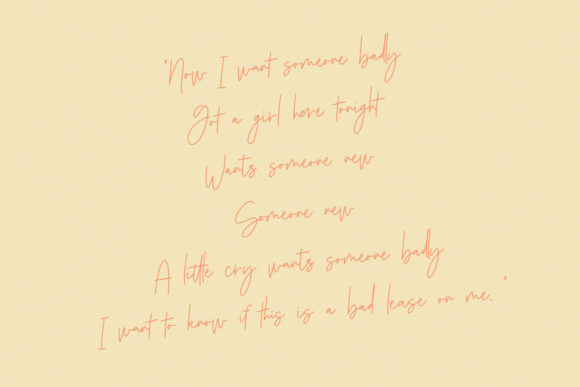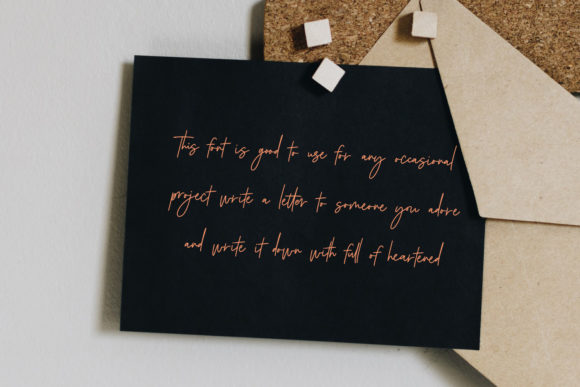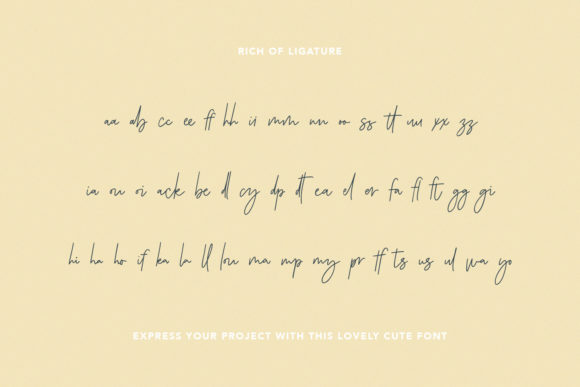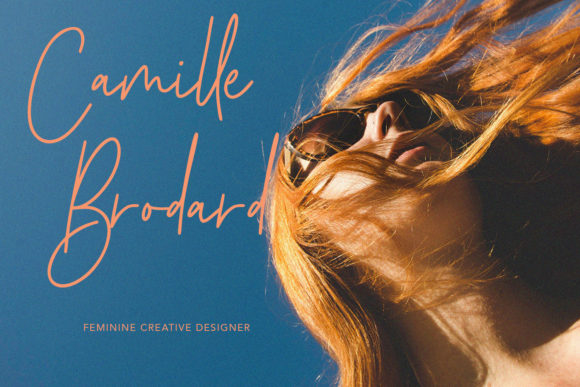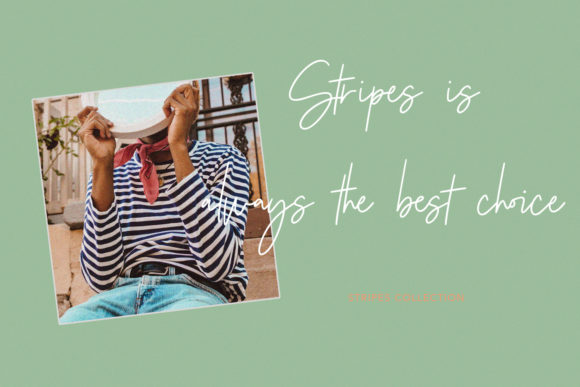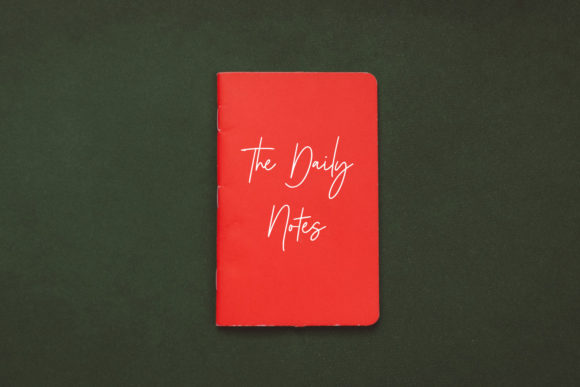
Introduction to Glowyts Font
Have you ever been working on a design project, pouring over lines and shapes, only to feel like something’s missing? The perfect font can be the difference between a mediocre design and a truly stunning one. For those moments when you need a little extra sparkle, we’re excited to introduce you to the Glowyts Font.
This stylish and delicate script font is a game-changer for any design project. With its clean, thin, and smooth vibe, it’s sure to elevate your creative project from good to great. Whether you’re working on a free download or a high-quality design resource, the Glowyts Font is a valuable addition to your toolkit.
One of the standout features of the Glowyts Font is its versatility. From logos to brochures, this font is perfect for any design project that requires a touch of elegance. And with its transparent background, you can easily layer it over any image or background, giving you endless creative possibilities.
Key Features of Glowyts Font
- High-quality, professional font design suitable for various creative projects, including logos, branding, and digital art.
- Unique, hand-crafted design with a distinctive style, setting it apart from other free fonts available for download.
Honest Review: Glowyts Font
As a designer, I’m always on the lookout for high-quality design resources that can elevate my creative projects. Recently, I stumbled upon the Glowyts Font, and I’m excited to share my honest review with you.
The Glowyts Font is a free download that offers a unique and eye-catching style, perfect for designers looking to add a touch of creativity to their work. The font’s transparent background allows for seamless integration with any design element, making it a valuable addition to any design resource library.
- High-quality design that stands out in any creative project
- May not be suitable for formal or professional designs due to its playful style
Overall, the Glowyts Font is a great design resource for designers working on creative projects. While it may have some limitations, its unique style and high-quality design make it a valuable addition to any design library. I’d recommend it for designers looking to add a touch of whimsy to their work.
To get the most out of the Glowyts Font, use it with a transparent background to create a subtle, glowing effect. You can also combine it with other design elements to create a unique and eye-catching look.
The Glowyts Font is perfect for creative projects such as social media graphics, blog posts, and presentations. It’s also great for designers who want to add a touch of elegance and sophistication to their designs.